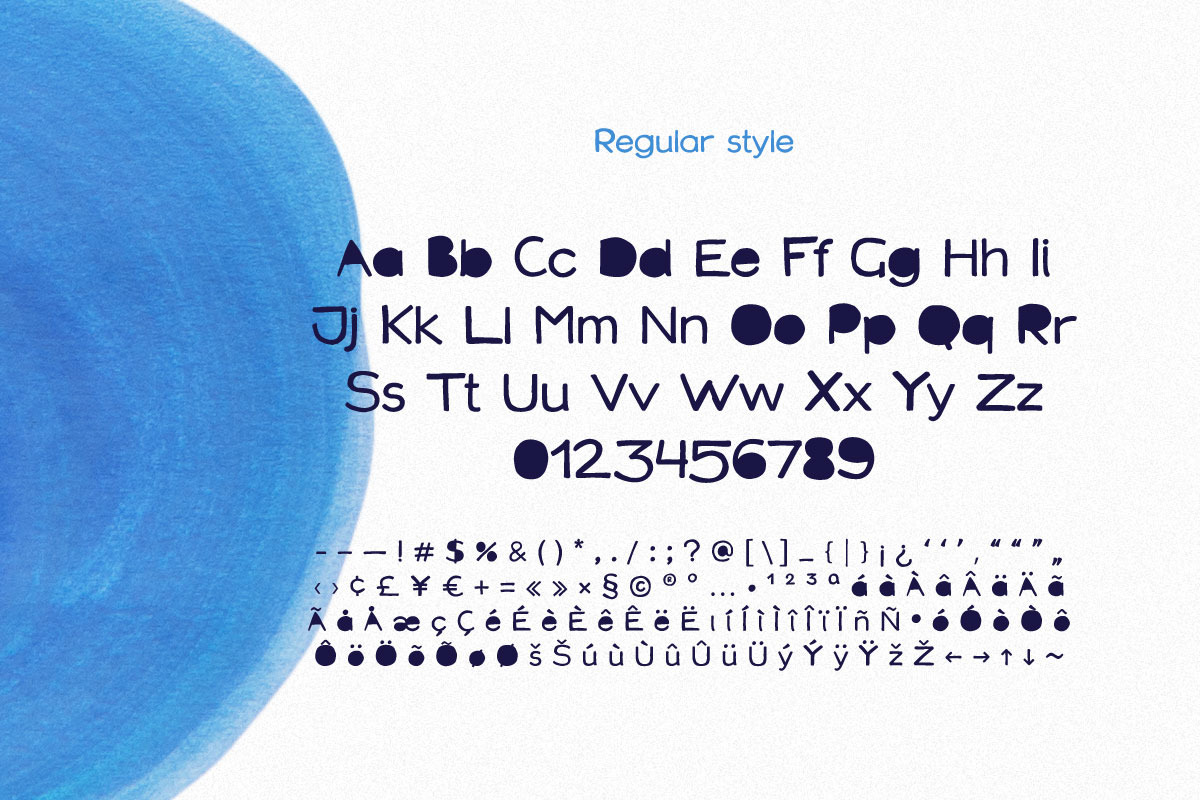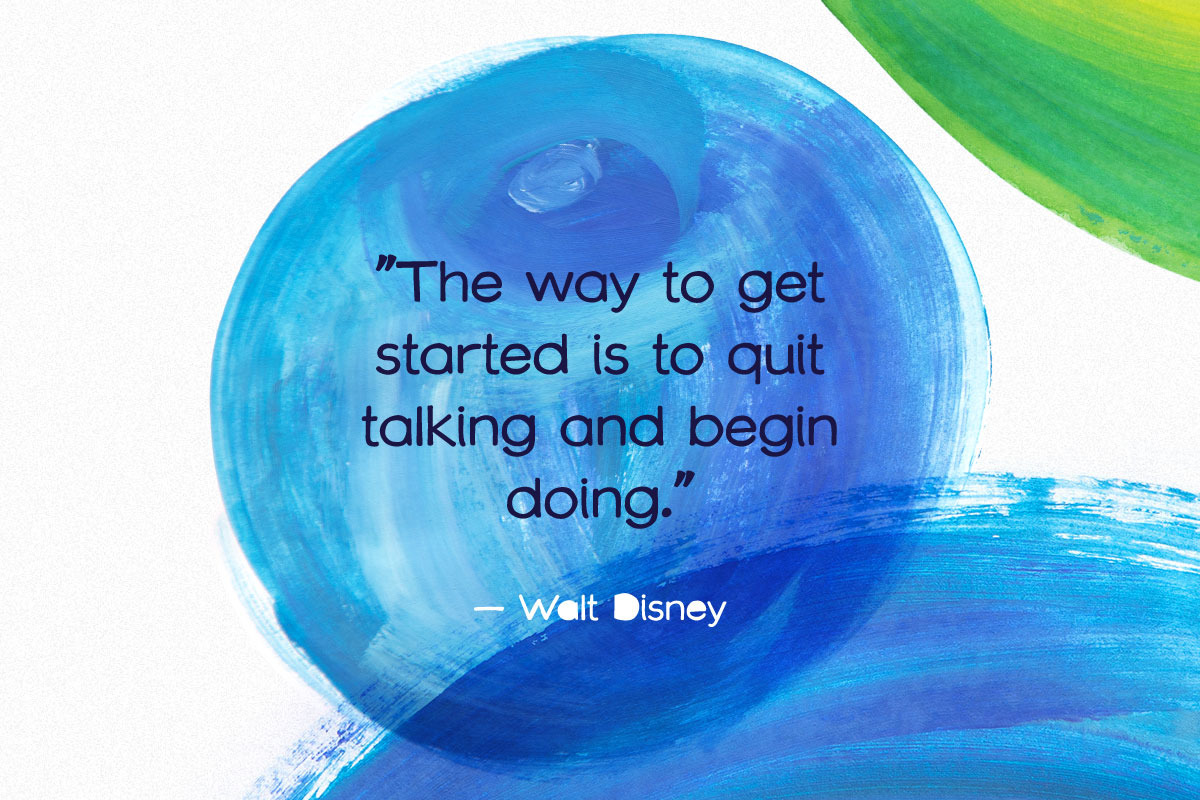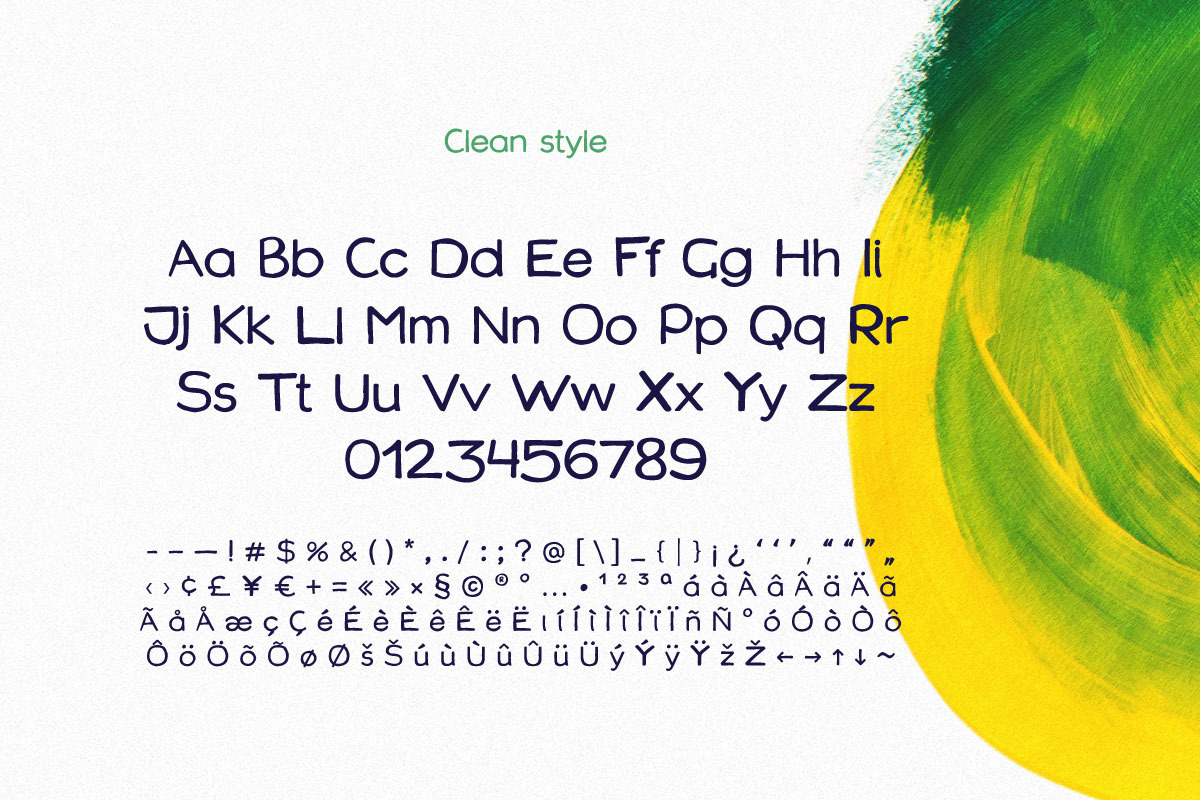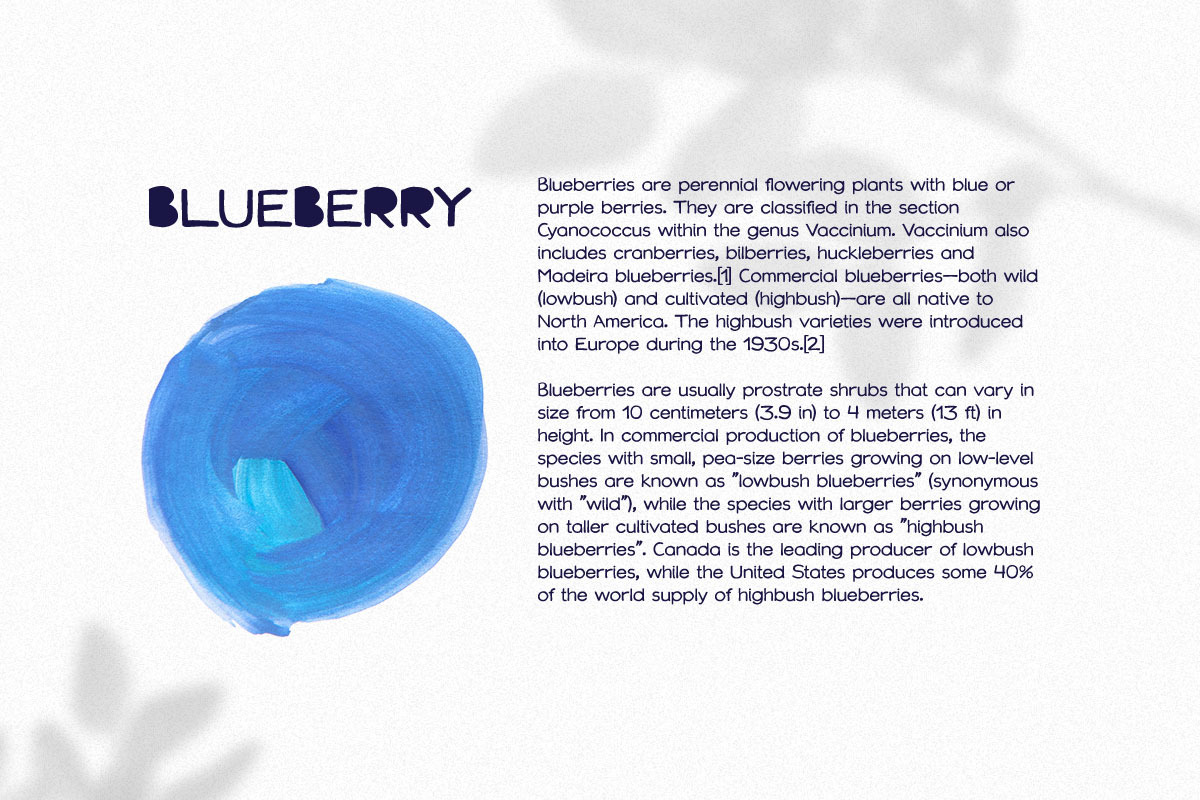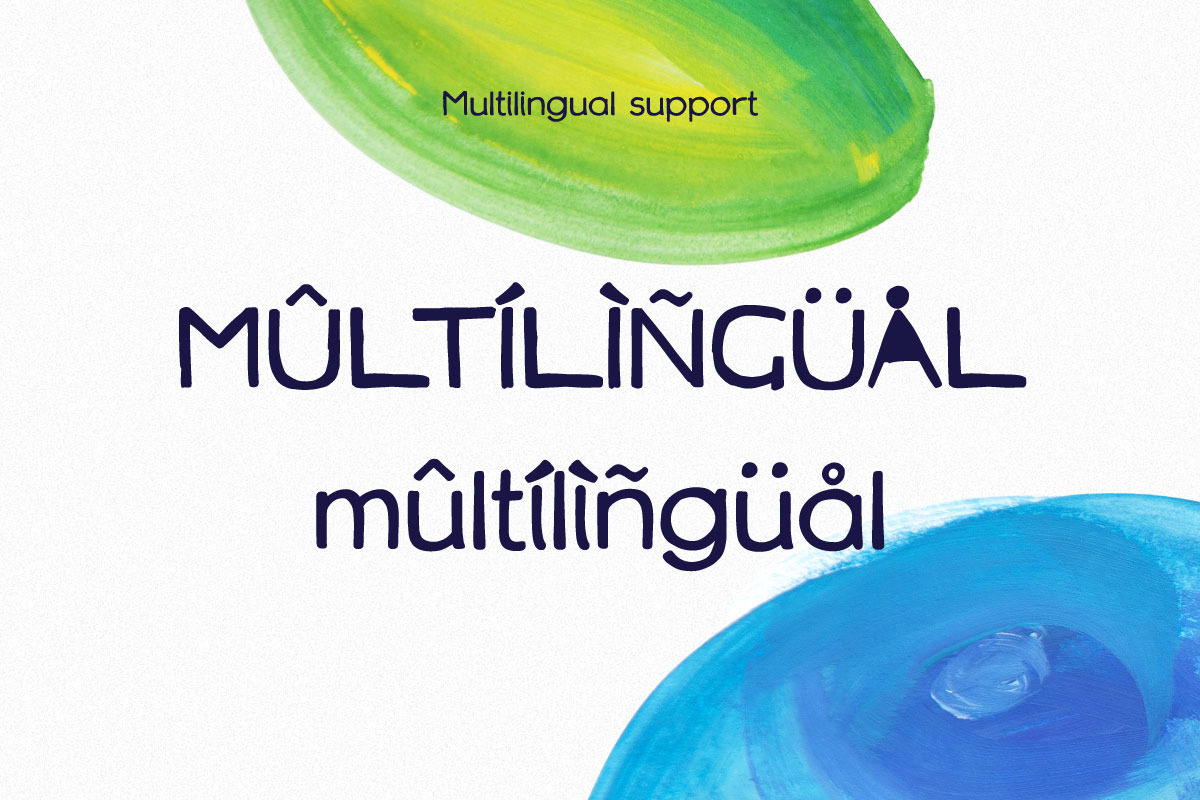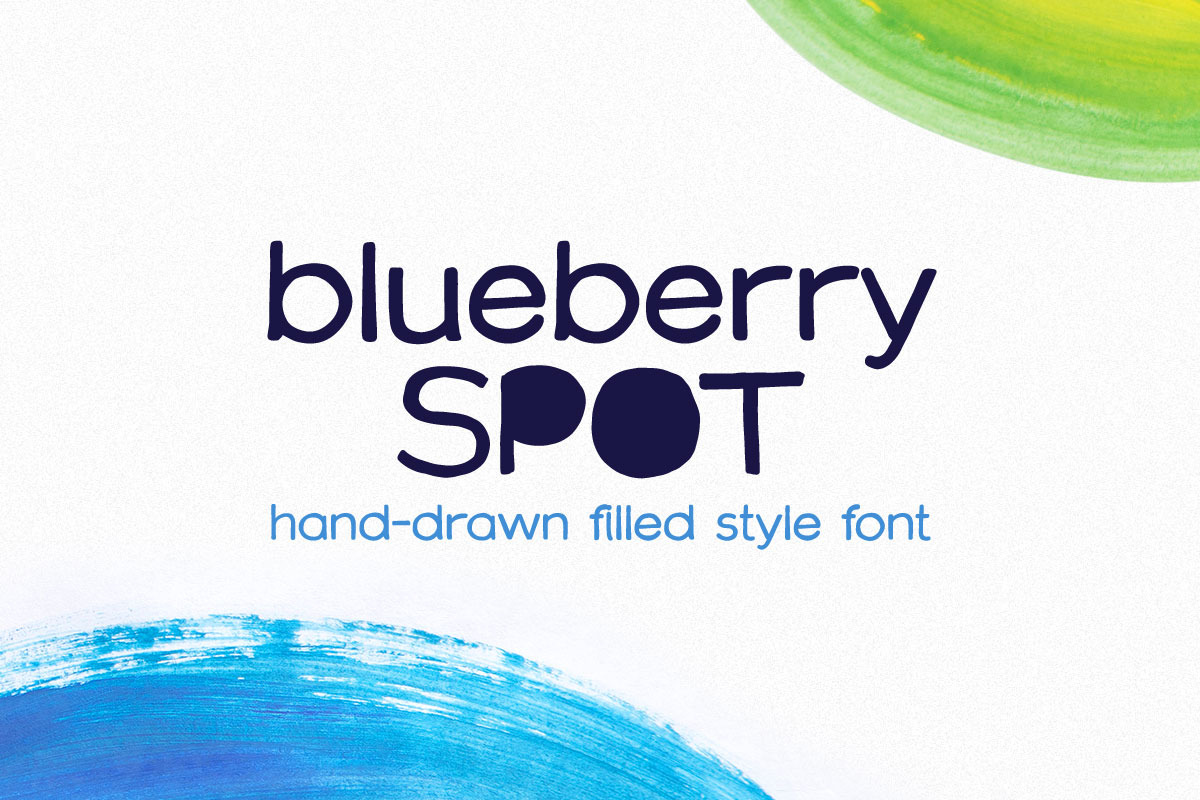
Blueberry Spot font
I’m glad to present my new hand-drawn typeface Blueberry Spot. The clearances in some letters are filled as if somebody put a blueberry blot in them. Also, I created the second style of this font. If you don’t want blots use a clear style. This font is perfect for making your project look pleasantly scruffy, handmade. Use it for nice identity, funny craft package, blog posts, holidays poster, etc.
- Regular and Clean styles